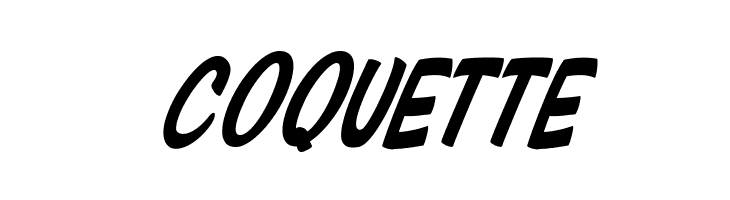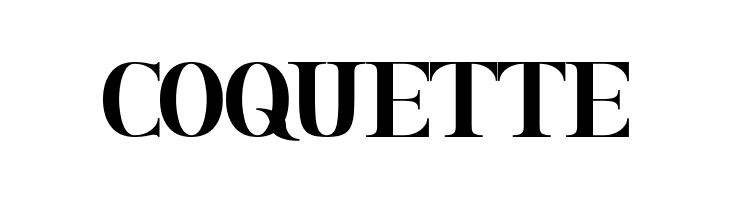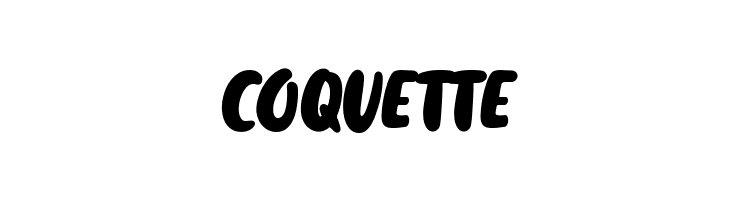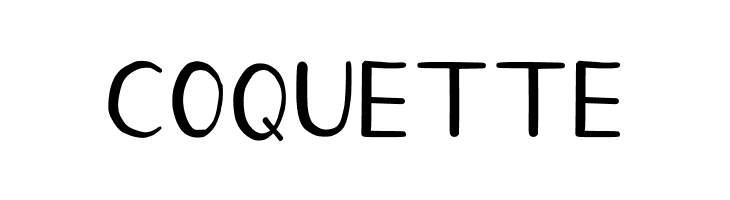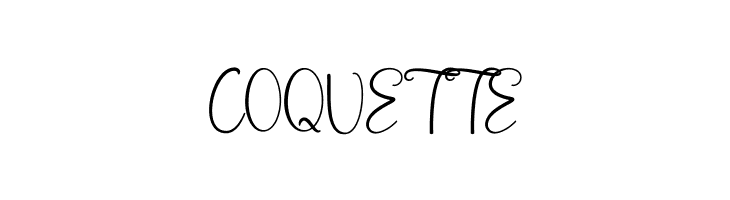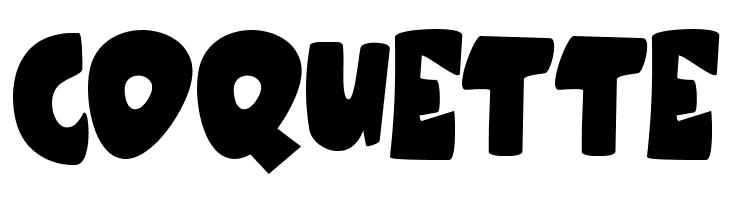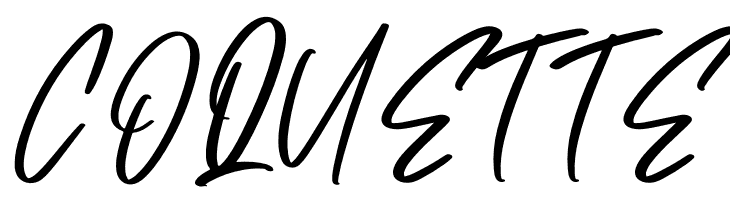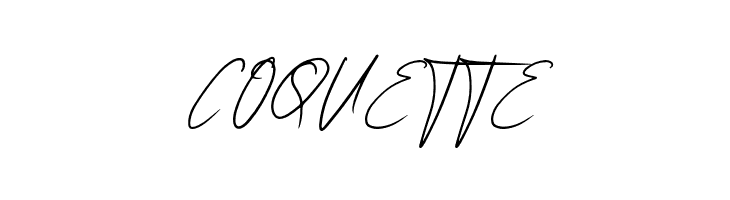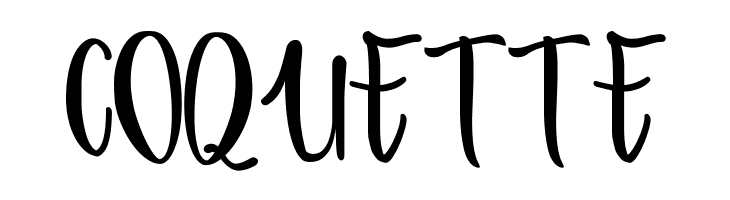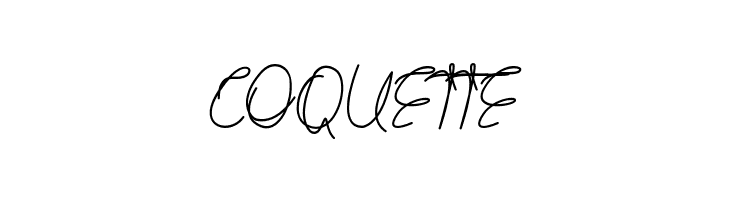
A playful, hand-drawn font with rounded edges and a whimsical style.
A bold, playful font with filled, rounded characters and a thick black outline.
A playful, bold hollow font with rounded edges and consistent stroke width.
A bold, playful font with a dotted texture and shadow effect.
A playful, hand-drawn font with a sketched, textured style.
A dynamic and fluid script font with smooth, flowing lines and a casual elegance.
An elegant, flowing script font with interconnected, graceful strokes.
An elegant, cursive script font with ornate, flowing strokes.
A playful, rounded font with smooth curves and a friendly vibe.
A bold, handwritten-style font with a playful and dynamic character.
A playful, bold font with rounded, bubbly characters perfect for informal designs.
A whimsical and flowing script font with elegant, fluid letterforms.
A bold, outlined, and playful font perfect for festive themes.
A bold, playful, and three-dimensional font with a comic-style flair.
A lively, cursive font with elegant, flowing strokes.
A bold, flowing script font with a handwritten, elegant style.
A bold, flowing script font with a lively, handwritten style.
Handwritten, playful sans-serif with tall, narrow letters and irregular strokes.
A playful handwritten font with a friendly and casual style.
A bold, brush script font with a hand-painted, dynamic style.
A cursive, handwritten font with elegant, flowing lines.
A whimsical, swash-style font with fluid, interconnected strokes.
An elegant and flowing script font with smooth, connected strokes.
A dynamic, cursive script font with fluid, interconnected strokes.
A playful, handwritten cursive font with smooth, connected strokes.
A playful and elegant script font with smooth, flowing lines and decorative flourishes.
A playful, bold handwritten font with thick, rounded strokes.
A dynamic handwritten font with fluid strokes and a natural, expressive style.
A playful, cursive script font with flowing, elegant strokes.
A dynamic, expressive handwritten font with fluid, cursive strokes.
A dynamic, expressive handwritten font with fluid cursive letterforms.